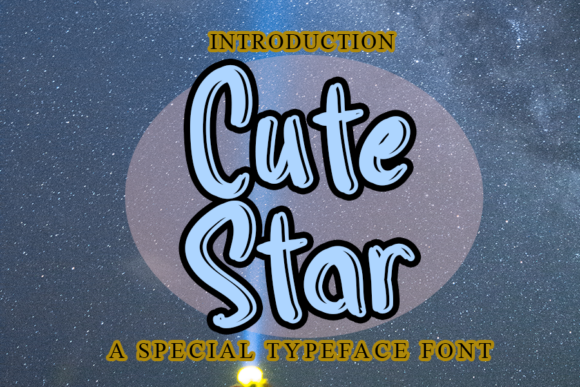
Cute Star Font
When you're looking for a font that adds personality and charm to your design projects, Cute Star stands out. This fun display font brings a unique style that can elevate everything from social media posts to creative branding. Whether you're a beginner or a seasoned designer, understanding how Cute Star fits into your workflow can make all the difference.
What Is Cute Star?
Cute Star is a stylized display font designed to capture attention with its playful and whimsical aesthetic. It features rounded edges, soft curves, and a sense of warmth that makes it ideal for projects that require a friendly and approachable feel. Unlike traditional sans-serif or serif fonts, Cute Star leans into a more decorative and expressive design, making it perfect for use in digital and print media.
Why Different Audiences Care About Cute Star
The appeal of Cute Star varies depending on who is using it. For some, it's about aesthetics; for others, it's about functionality or brand identity. Understanding these differences helps you determine whether Cute Star is the right choice for your project.
Beginners and Hobbyists
For beginners and hobbyists, Cute Star offers an easy way to add character without requiring advanced design skills. Its playful nature allows users to experiment with typography without worrying about technical complexity. A hobbyist creating a personal blog or social media content might find that Cute Star helps their work stand out and feel more engaging.
Professionals and Creators
Professionals and creators may use Cute Star in different ways. While it's not a typical go-to font for formal documents, it can be a great choice for creative branding, logos, or promotional materials. A graphic designer working on a children's book cover, for example, might choose Cute Star to match the playful tone of the story.
Entrepreneurs and Small Business Owners
Entrepreneurs and small business owners often look for fonts that reflect their brandβs personality. Cute Star can help create a memorable and approachable brand image, especially for businesses targeting younger audiences or those in the entertainment, lifestyle, or education sectors. A boutique owner selling handmade crafts could use Cute Star in their logo or packaging to convey warmth and creativity.
Marketers and Bloggers
Marketers and bloggers may use Cute Star to enhance visual storytelling. Its whimsical style can help make content more relatable and engaging. A blogger writing about travel or food might incorporate Cute Star into headers or call-to-action buttons to draw readers in and create a more inviting atmosphere.
Educators and Freelancers
For educators and freelancers, Cute Star can serve as a tool for teaching or showcasing creativity. A teacher designing a classroom poster or a freelancer creating a portfolio might find value in how Cute Star can make their work feel more dynamic and visually appealing.
Practical Applications Across Audiences
Each audience has different priorities when choosing a font like Cute Star. Here are some examples of how different groups might use it:
- Beginners: Use Cute Star for personal projects like greeting cards, social media posts, or DIY crafts.
- Professionals: Incorporate Cute Star into branding elements such as logos, website headers, or marketing materials.
- Business Owners: Apply Cute Star to packaging, signage, or promotional items to create a cohesive and recognizable brand identity.
- Bloggers: Use Cute Star to highlight key phrases or create eye-catching headlines that engage readers.
- Freelancers: Utilize Cute Star in presentations, proposals, or client materials to showcase creativity and personality.
- Consumers: Choose Cute Star for personal use in invitations, event flyers, or home decor to add a touch of charm.
Evaluating Cute Star for Your Needs
Before deciding if Cute Star is right for you, consider your goals, skill level, and project type. If you're looking for something simple and fun, Cute Star could be a great fit. However, if you need a font that's more versatile for professional or formal settings, you might want to explore other options.
Additionally, think about factors like ease of use, cost, and long-term usefulness. Cute Star is generally accessible and user-friendly, but its decorative style may not be suitable for every project. If you're unsure, experimenting with different fonts can help you find the one that best aligns with your vision.
Conclusion
Cute Star is more than just a fontβit's a creative tool that can bring your ideas to life. Whether you're a beginner, a professional, or somewhere in between, there's a place for Cute Star in your design journey. By understanding how different audiences may care about it, you can better determine whether it meets your needs and helps you achieve your goals.